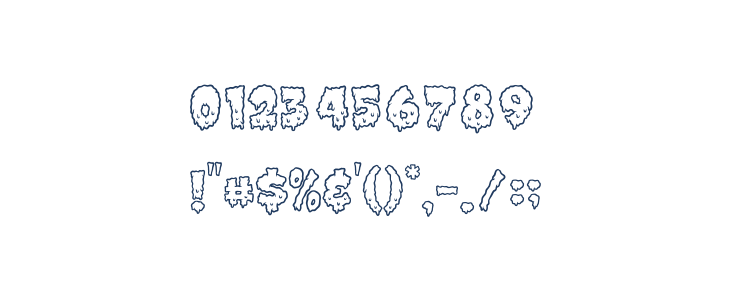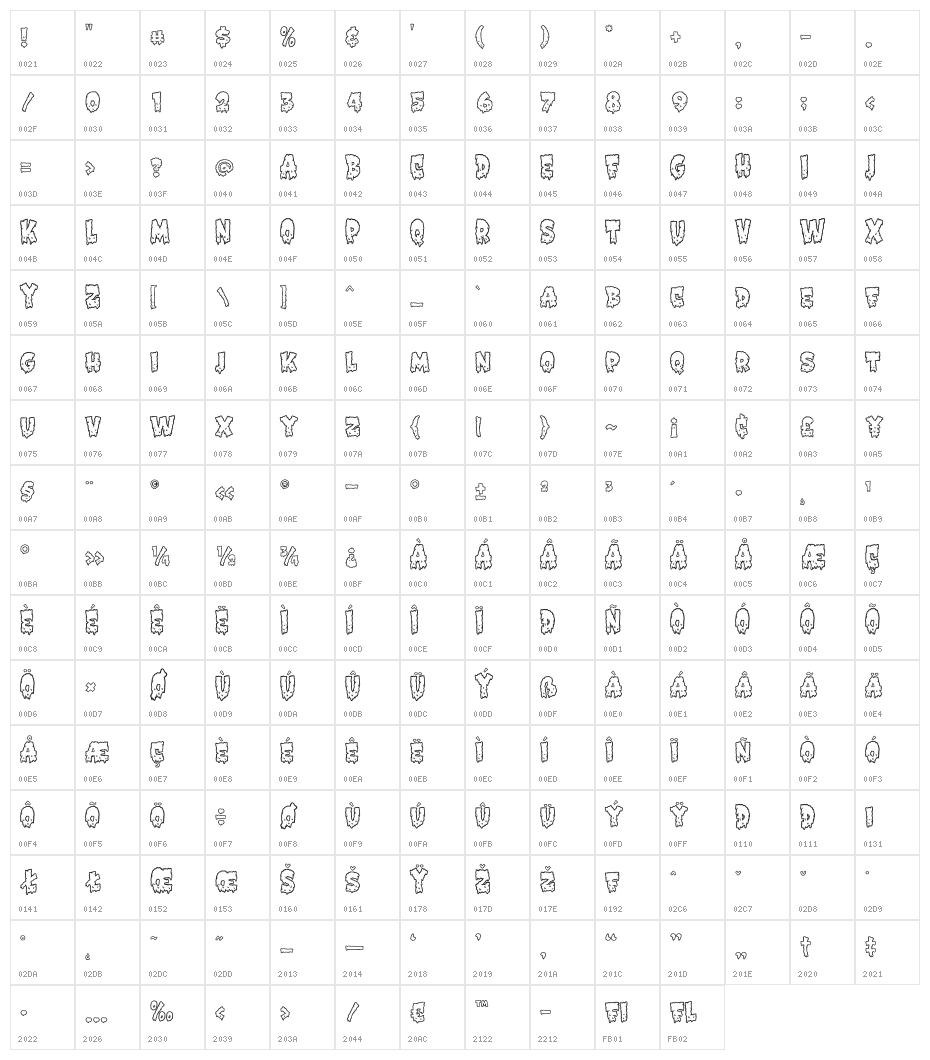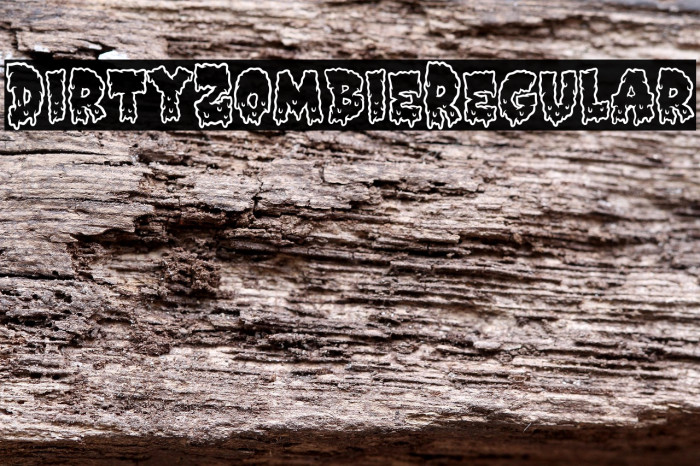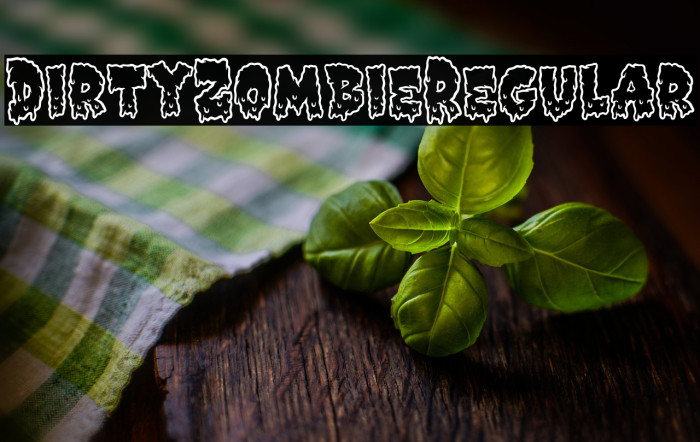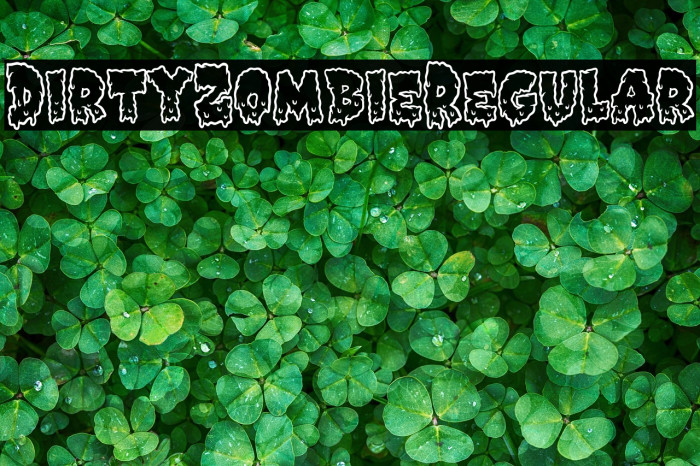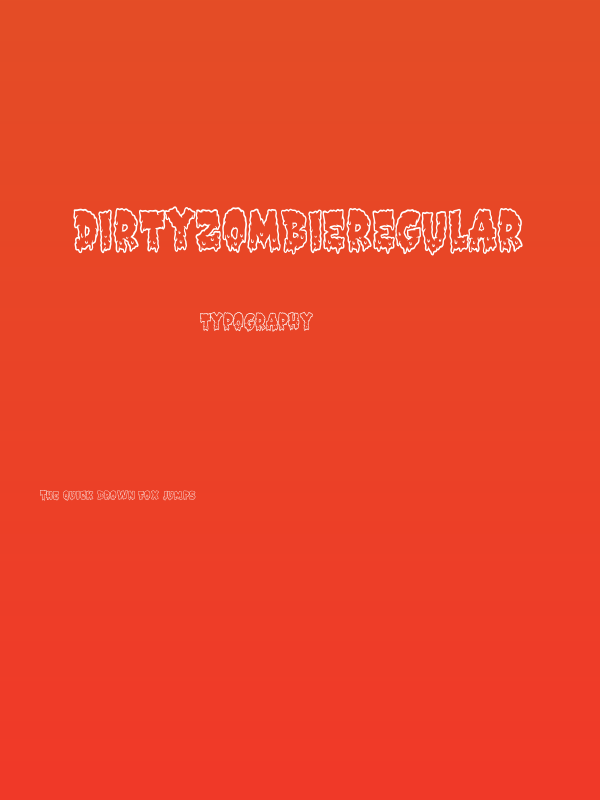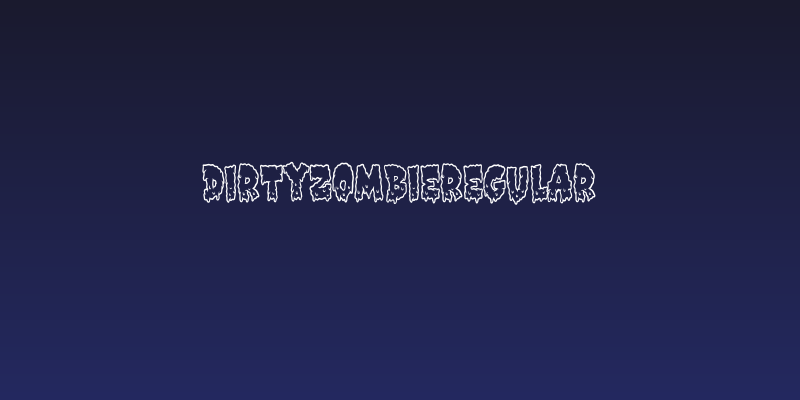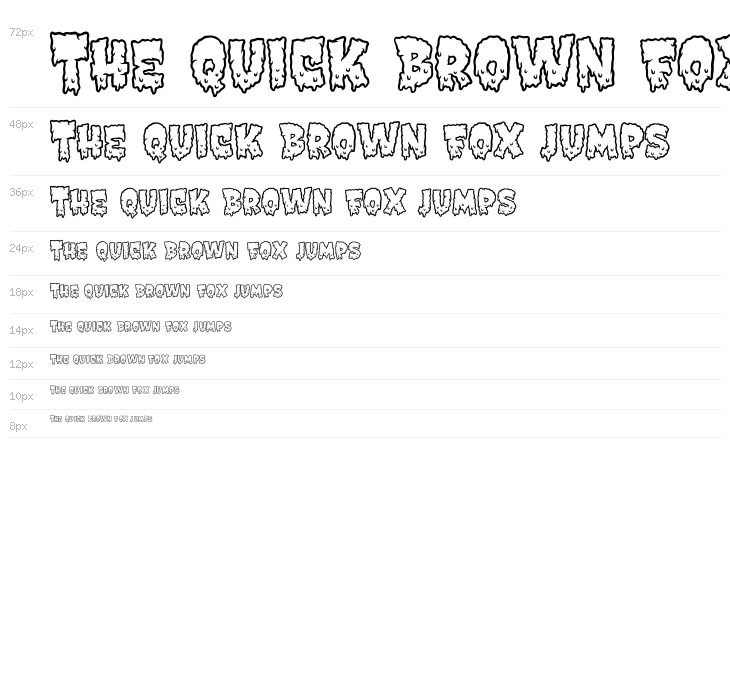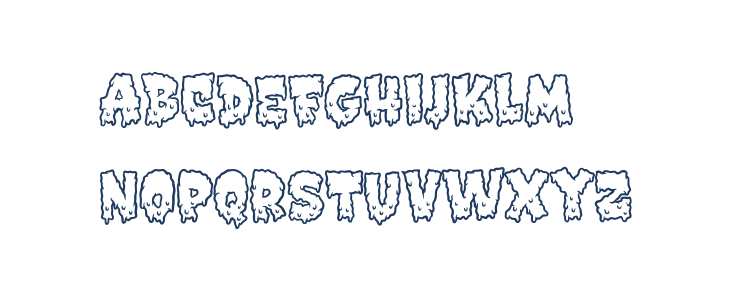
DirtyZombieRegular Font
DirtyZombieRegular Description
This font exudes a playful and eerie vibe, perfect for themes that require a spooky or Halloween-like atmosphere. The characters are designed with a dripping effect, reminiscent of slime or melting wax, giving it a unique and eye-catching appearance. The bold and irregular outlines add to its distinctive style, making it stand out in any design. The uppercase and lowercase letters maintain a consistent theme, while the numbers and special characters are equally creative, ensuring a cohesive look across all text elements.
| Use Case | Headlines, Posters, Themed Events |
| Proposed Projects | This font is perfect for Halloween party invitations, horror-themed posters, spooky video game titles, and any project that requires a touch of the macabre. |